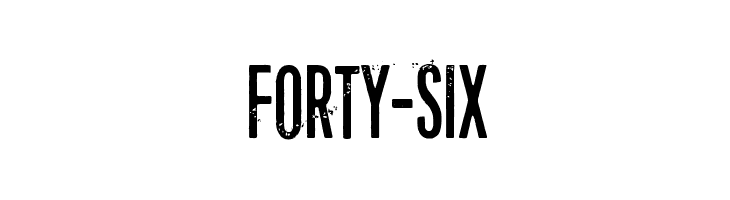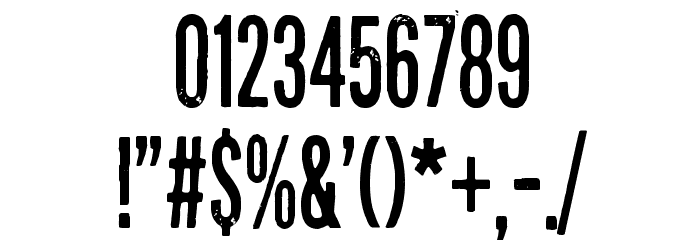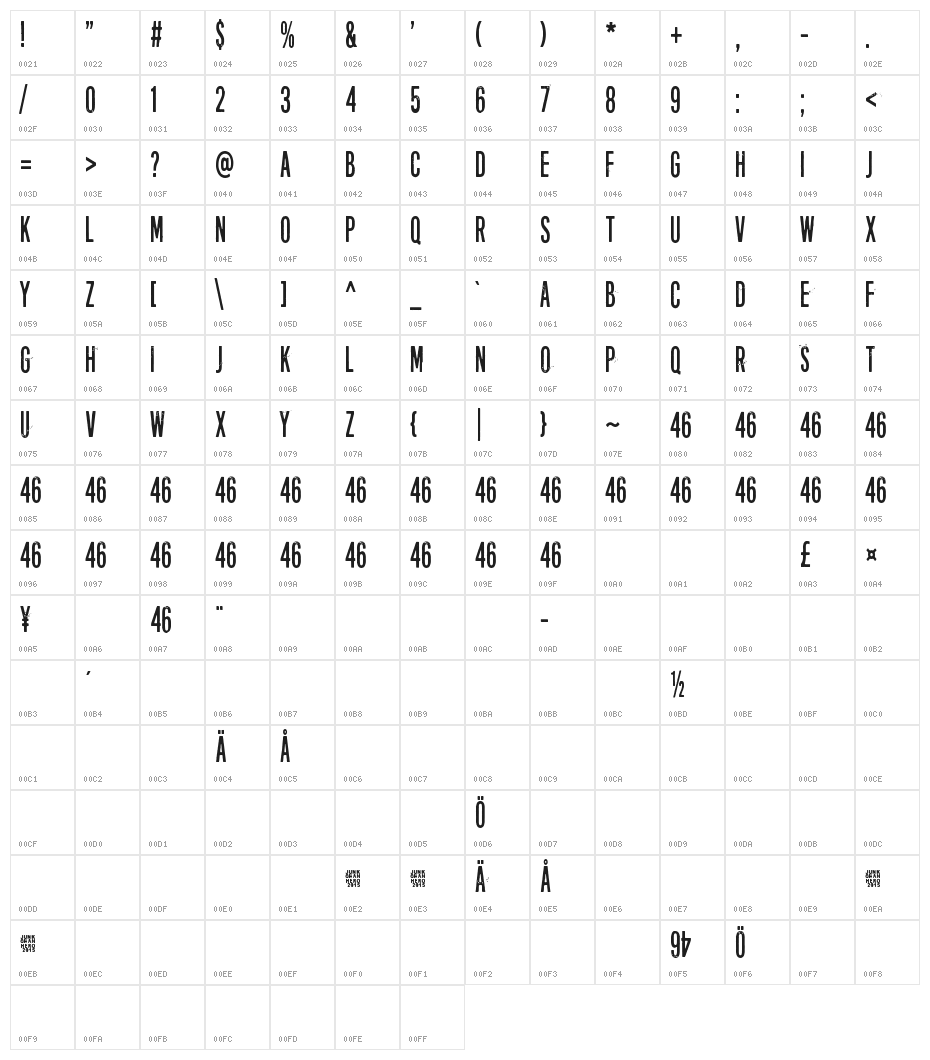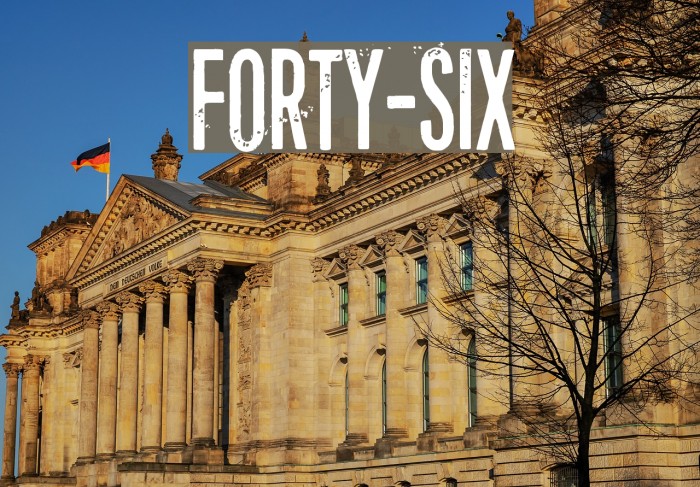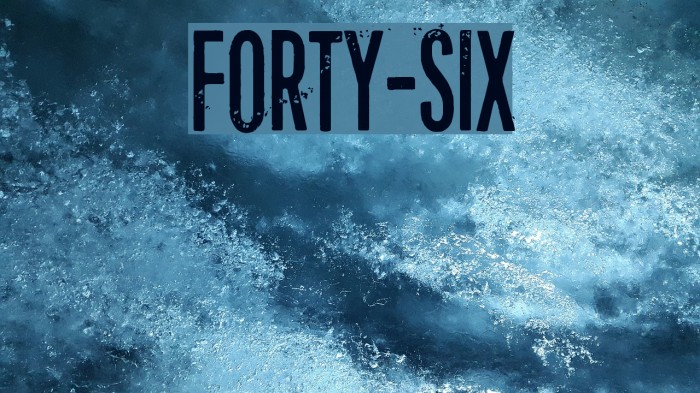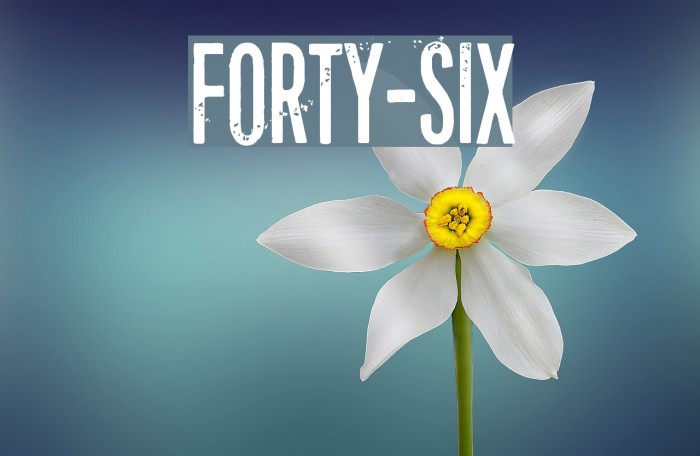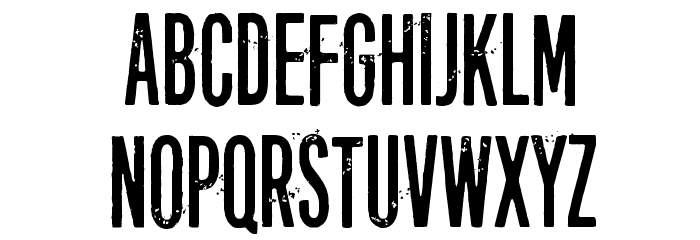
Forty-six Font
Forty-six Description
This font features a bold, distressed style with a vintage, grunge aesthetic. The characters are tall and narrow, with a slightly uneven texture that gives them a worn, rugged appearance. The uppercase letters are prominent, while the lowercase letters maintain the same distressed look. Numbers and special characters are consistent with this style, making the font suitable for designs that require a strong, impactful presence. The overall look is both bold and artistic, perfect for projects that aim to capture an edgy or retro vibe.
| Proposed Projects | Ideal for posters, album covers, branding, and any design needing a bold, vintage look. |